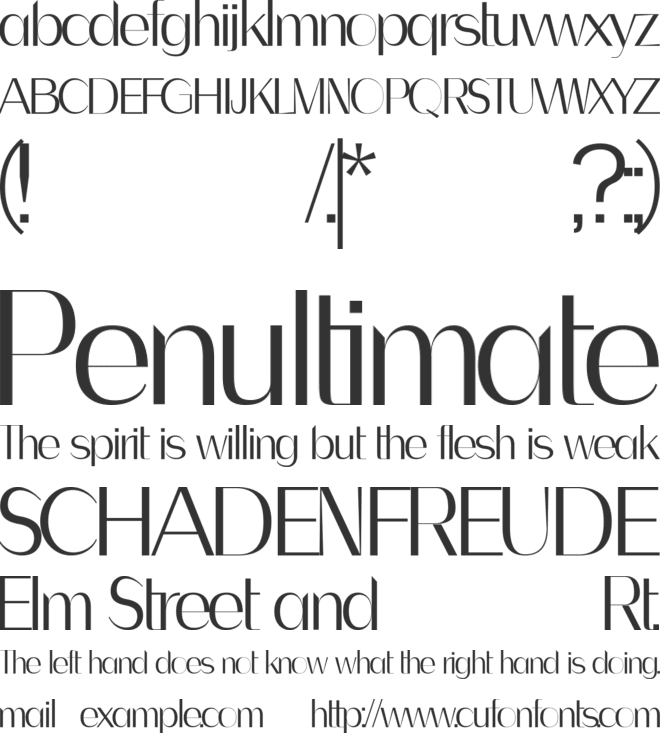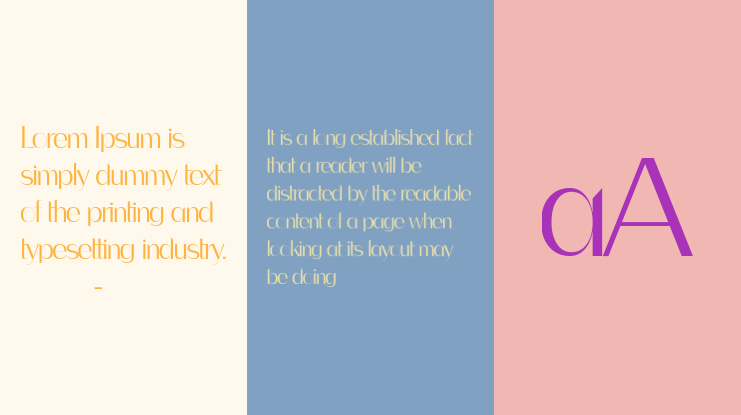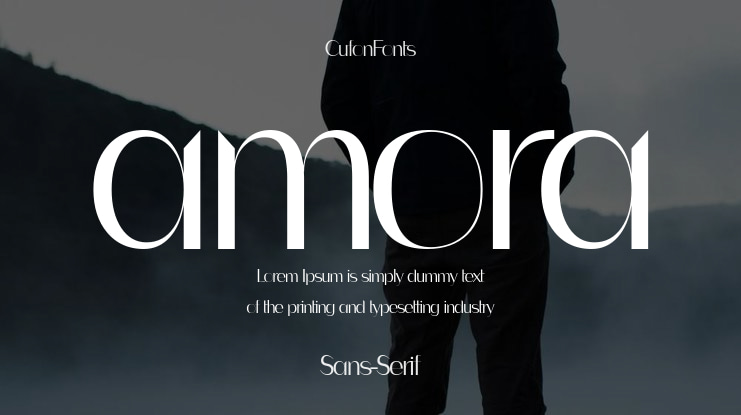
amora Font Family
Amora is a minimalist sans serif with multilingual support and stylistic alternates—ideal for modern branding, fashion packaging, and editorial elegance.